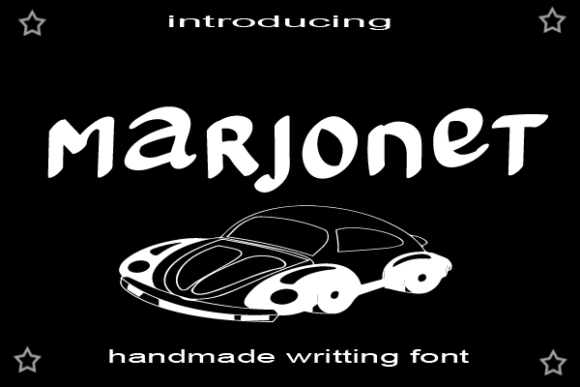
Marjonet Font
Step into the world of enchanting typography with Marjonet Font, a display font that will leave you breathless. Its unique characters burst with personality, adding a captivating touch to your design projects. Dive into a sea of creativity and let Marjonet Font elevate your work to new heights.
Marjonet Font is a visual masterpiece that captivates the eyes, making it the perfect choice for wedding invitations, branding, logos, posters, and any project that demands elegance and charm. Its playful flair breathes life into your creations, leaving a lasting impression on your audience.
Marjonet Font is a versatile font that adapts seamlessly to any design aesthetic. Whether you're working on a delicate wedding invitation or a bold brand identity, Marjonet Font effortlessly complements your vision. It's the perfect font for those who seek to create designs that speak volumes without uttering a single word.
Imagination knows no bounds with Marjonet Font. Let your creativity soar as you explore the endless possibilities this font offers. Its unique letterforms will add a touch of whimsy to your designs, making them stand out from the crowd. It's a font that empowers you to express yourself authentically and leave an indelible mark on the world.
Marjonet Font is more than just a collection of letters; it's an artistic expression that transforms your designs into captivating works of art. Its enchanting curves and delicate details will evoke emotions and create a lasting connection with your audience. It's a font that speaks to the heart, leaving a trail of magic wherever it's used.
So, unveil your inner artist and let Marjonet Font ignite the fire of creativity within you. Embrace the beauty of its characters and embark on a journey of design excellence. Experience the transformative power of Marjonet Font and see your projects blossom into masterpieces that leave a lasting legacy.